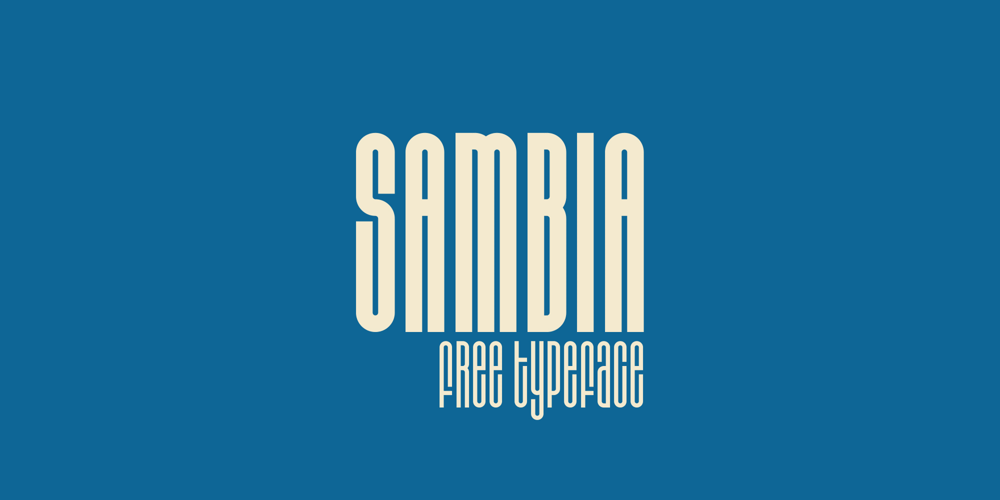
Sambia Font Family was designed by Sergey Mikheev and published by Sergio Storm. Sambia contains 2 styles and family package options. “Sambia” is a geometric sans-serif, straight, extra condensed, monoweight font, accidental with sharp corners and closed aperture. The font family consists of regular and bold fonts. Typeface is great for headlines, logos and posters. The typeface is inspired by the Bauhaus style and tributes to the first half of the 20th century era. It has concise rounded forms, geometricity and a small letter-spacing. – Uppercase and lowercase letters – Numbers, punctuation and symbols- Multilingual support (Latin, Latin Extended, Cyrillic) – Support for more than 20 languages: Albanian, Belarusian, Bulgarian, Croatian, Danish (Norwegian), Estonian, Finnish, German, Hungarian, Icelandic, Italian, Latvian, Lithuanian, Moldovan, Portuguese, Russian, Slovak, Slovenian, Spanish, Swedish, Turkish, Ukrainian and others